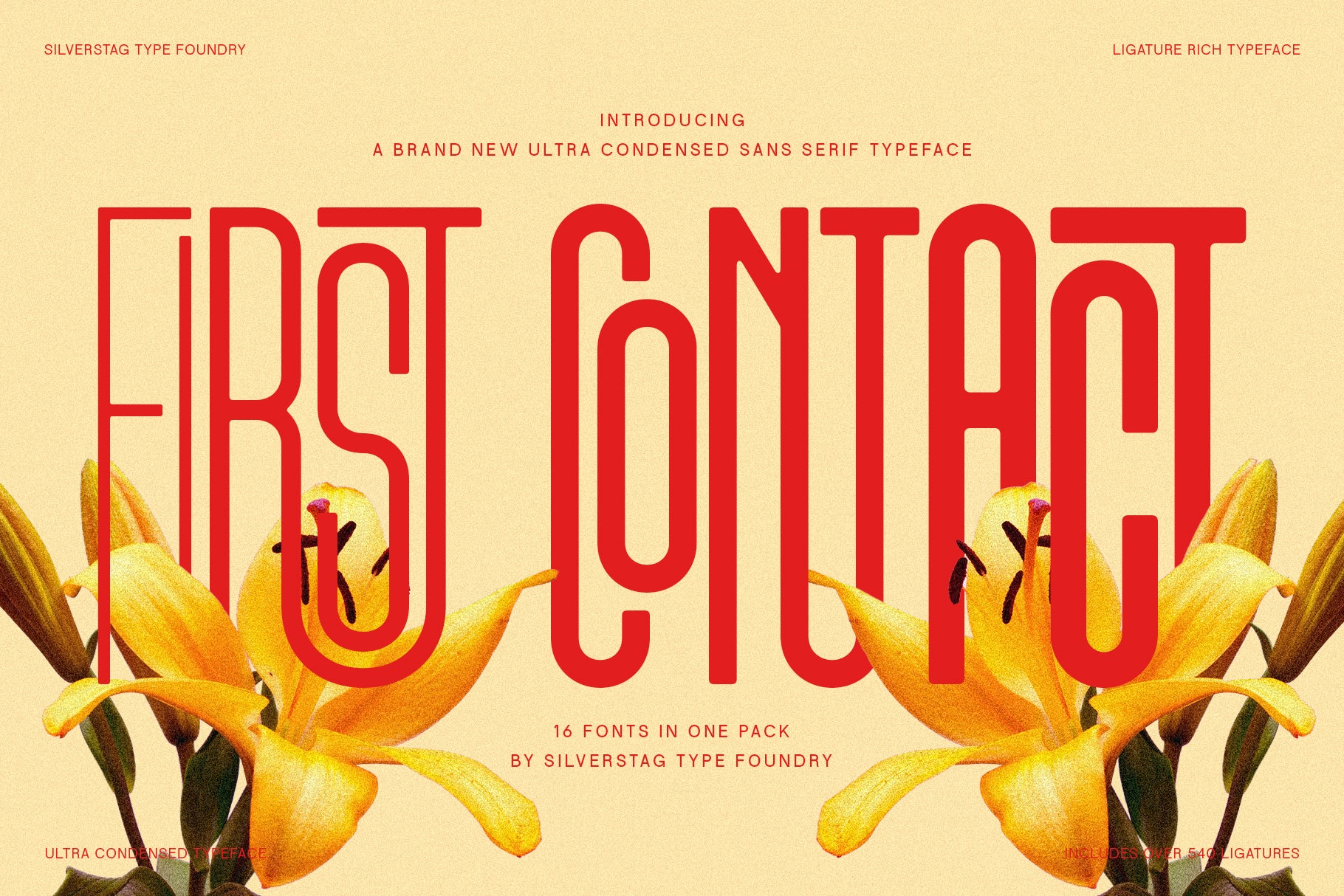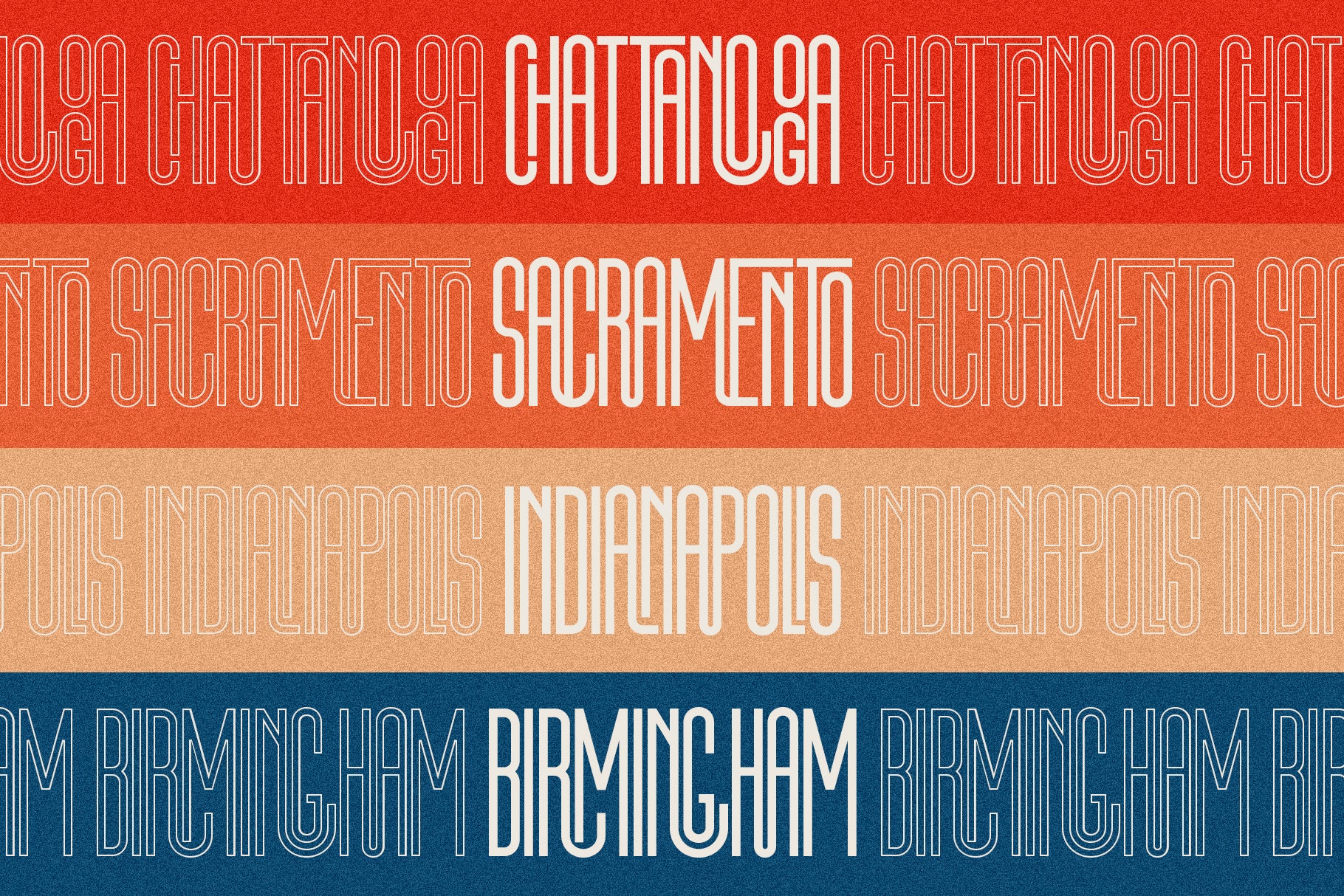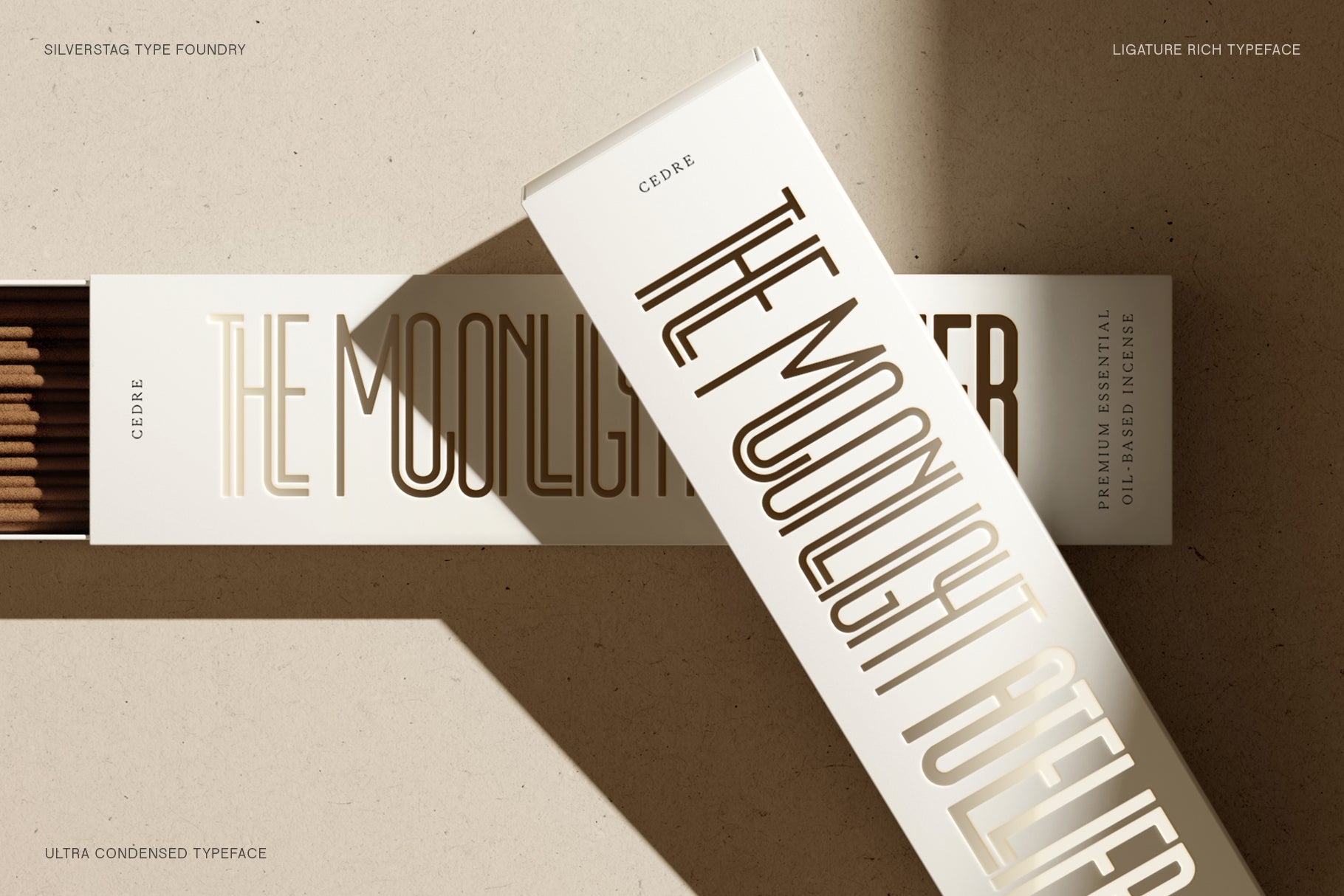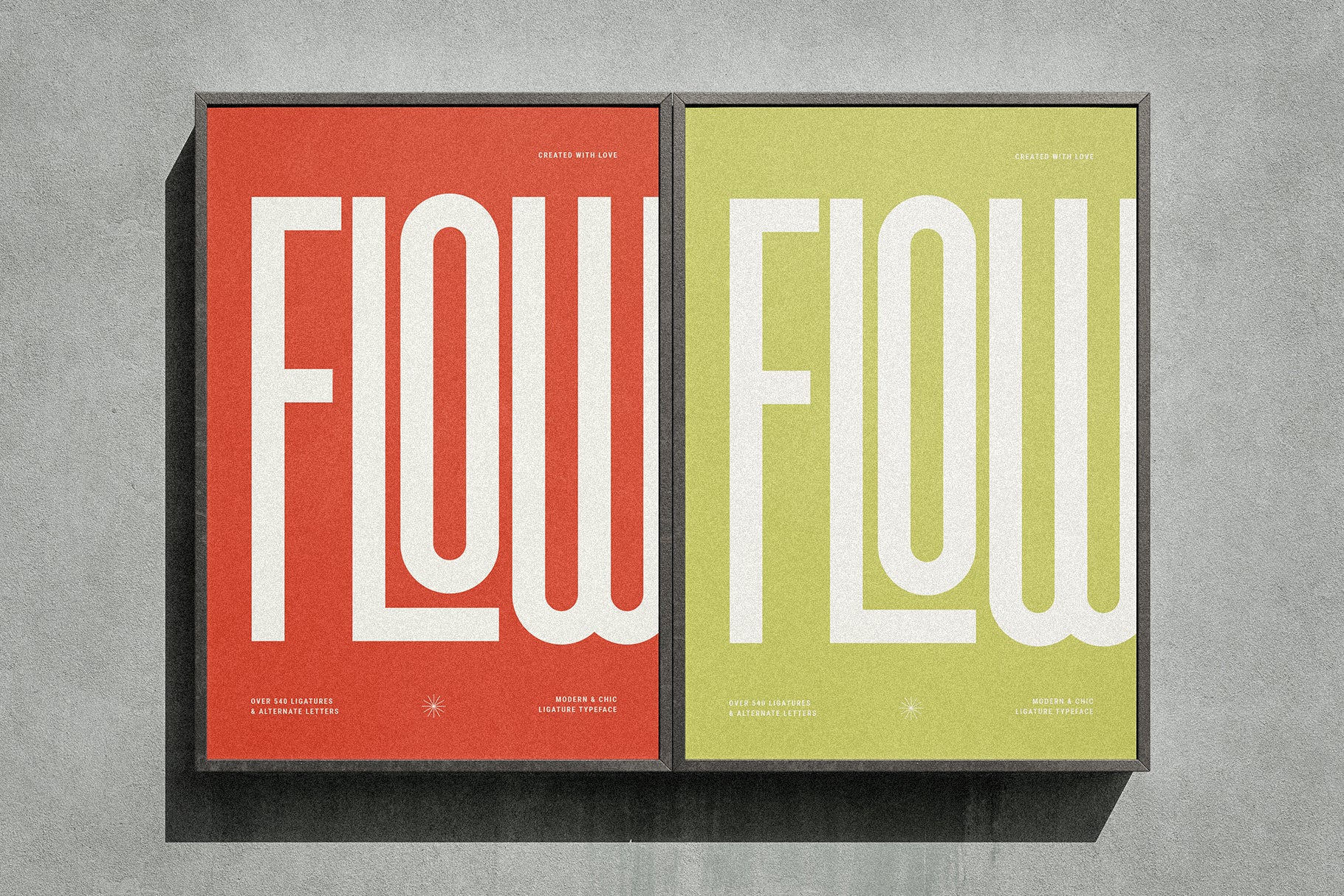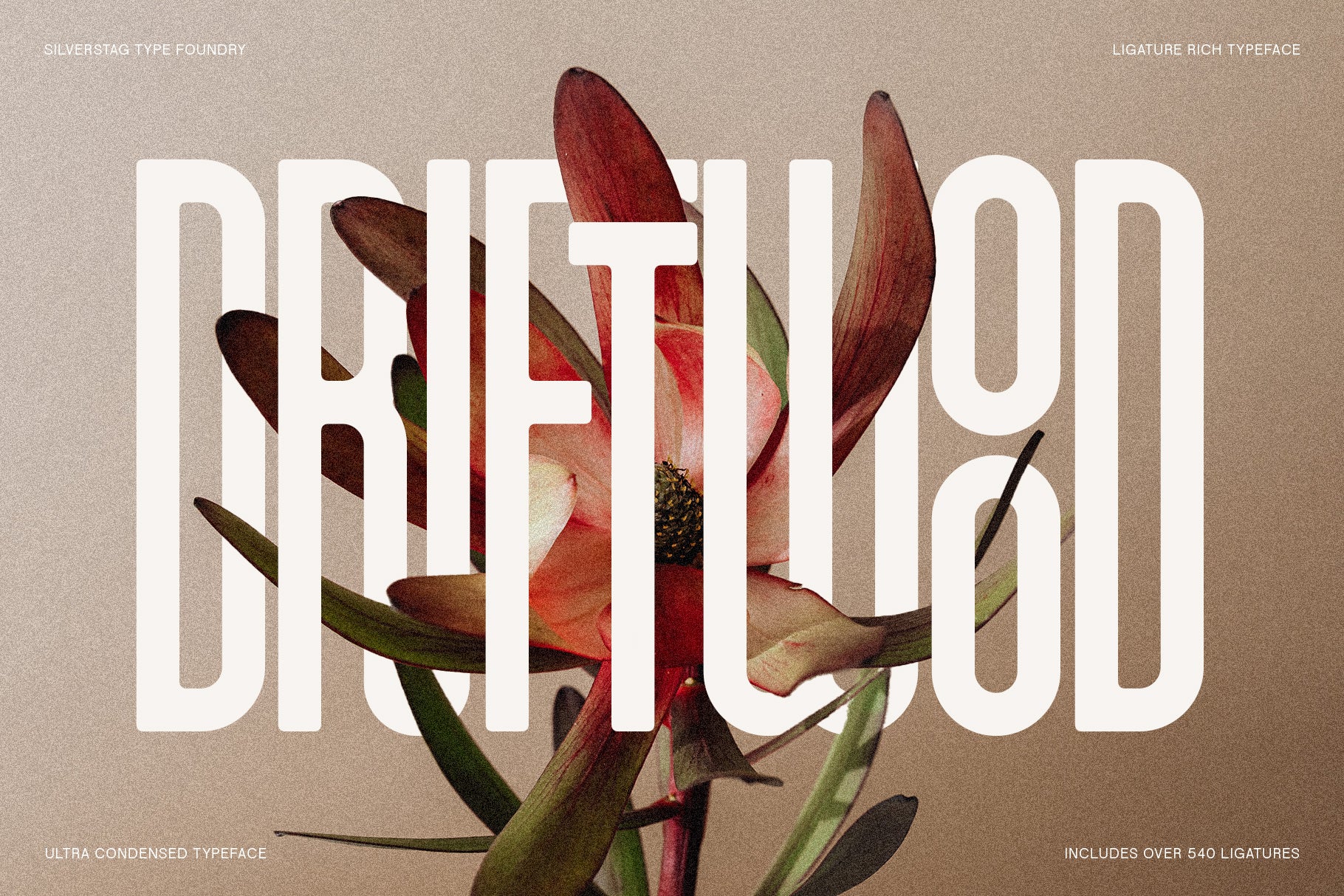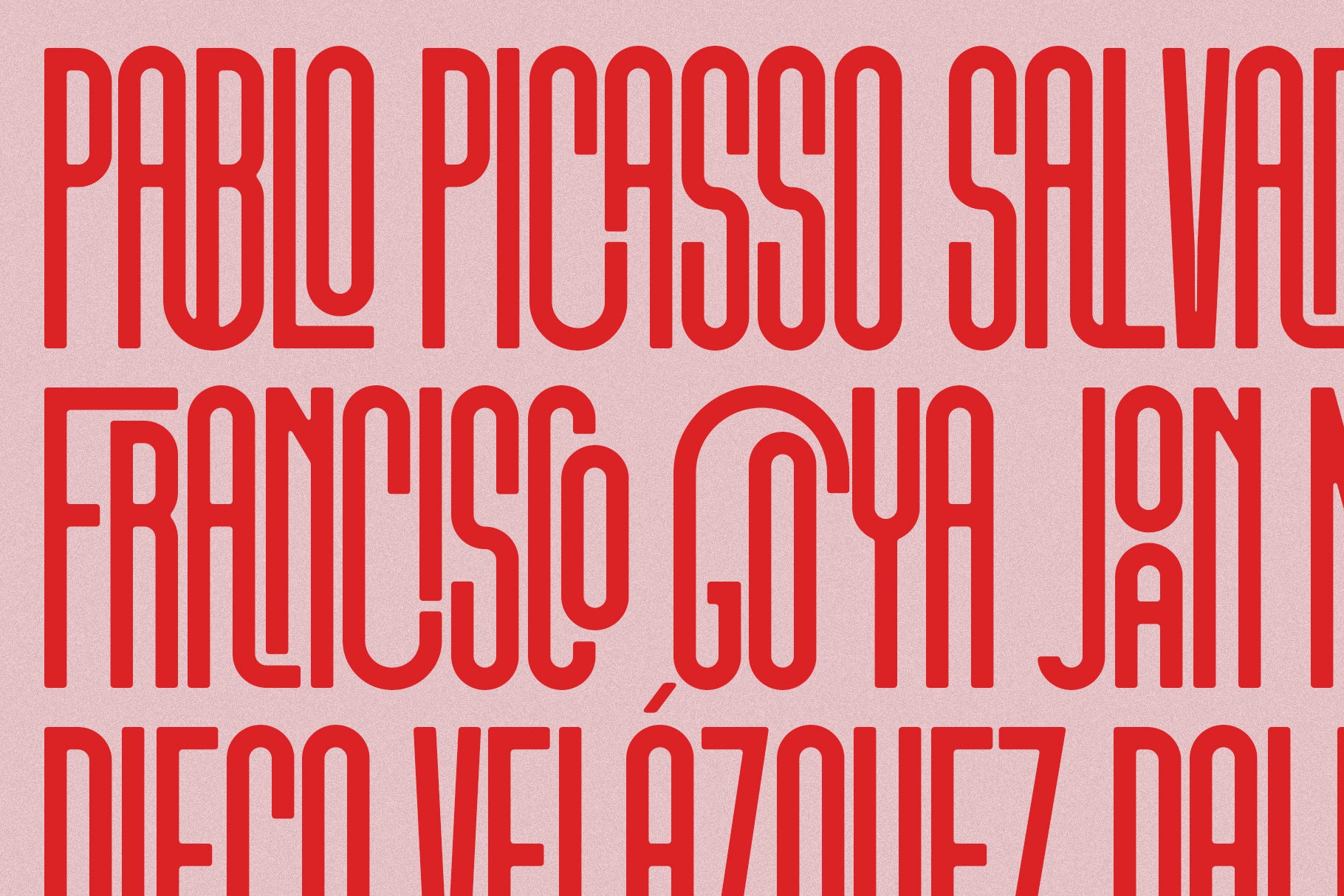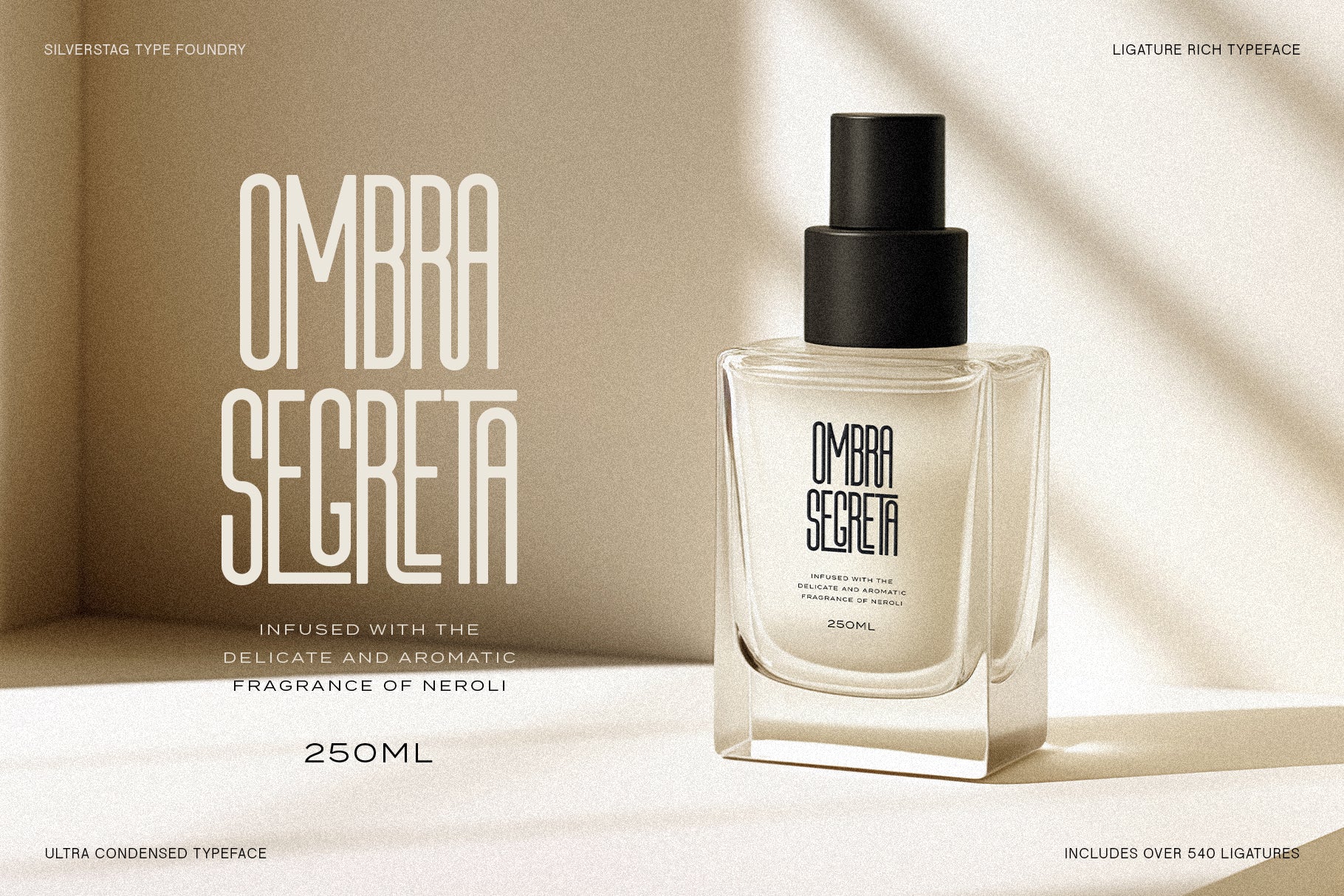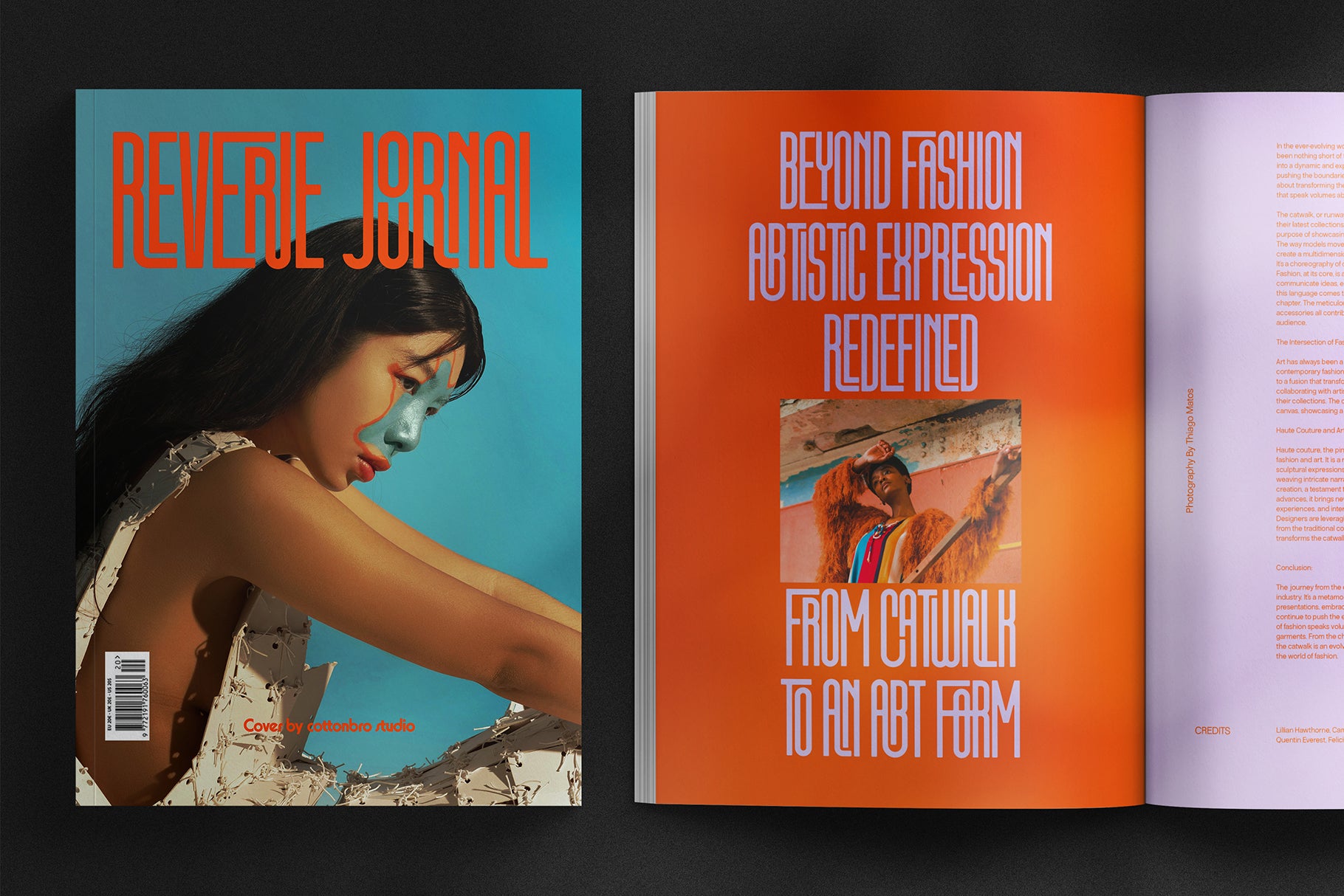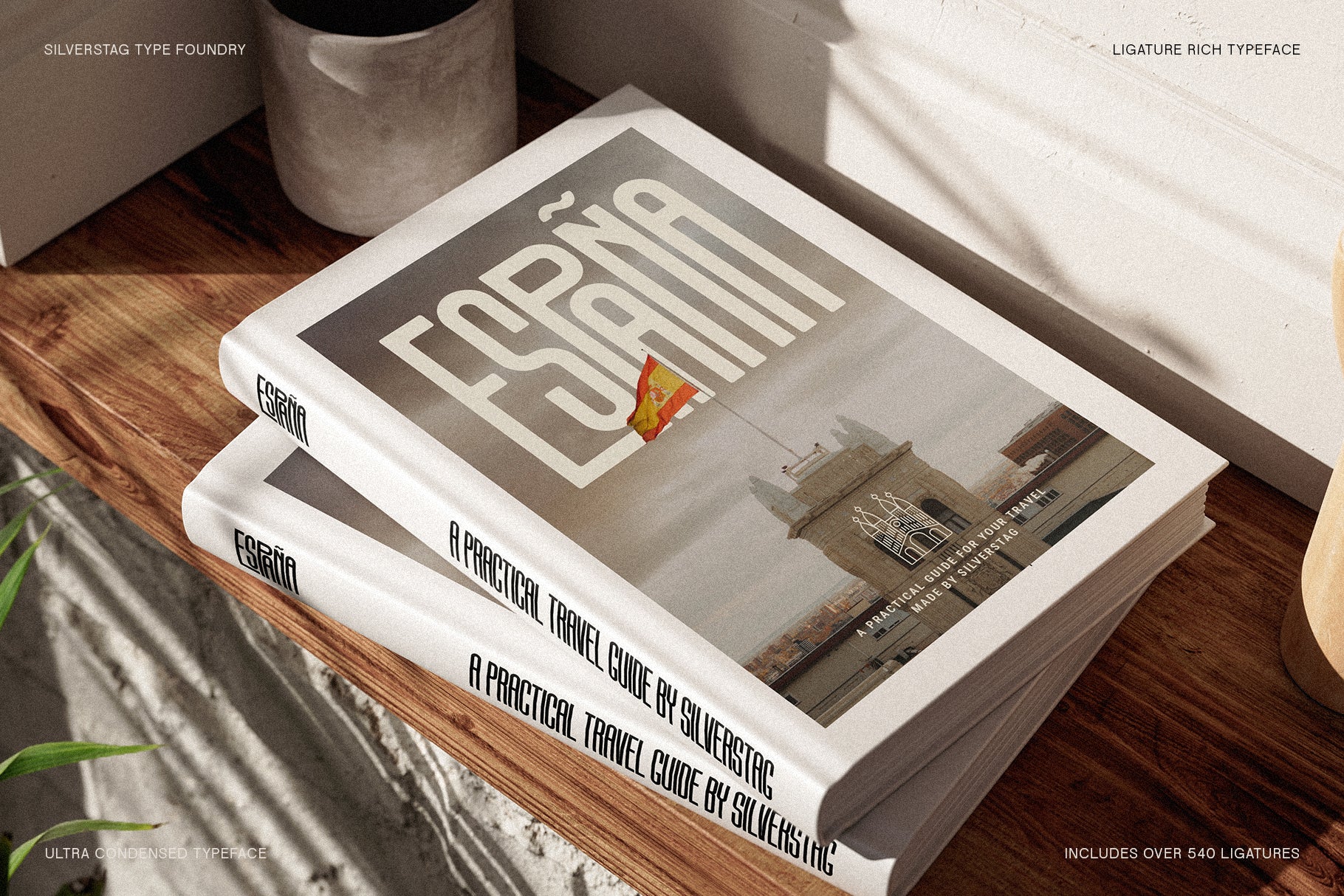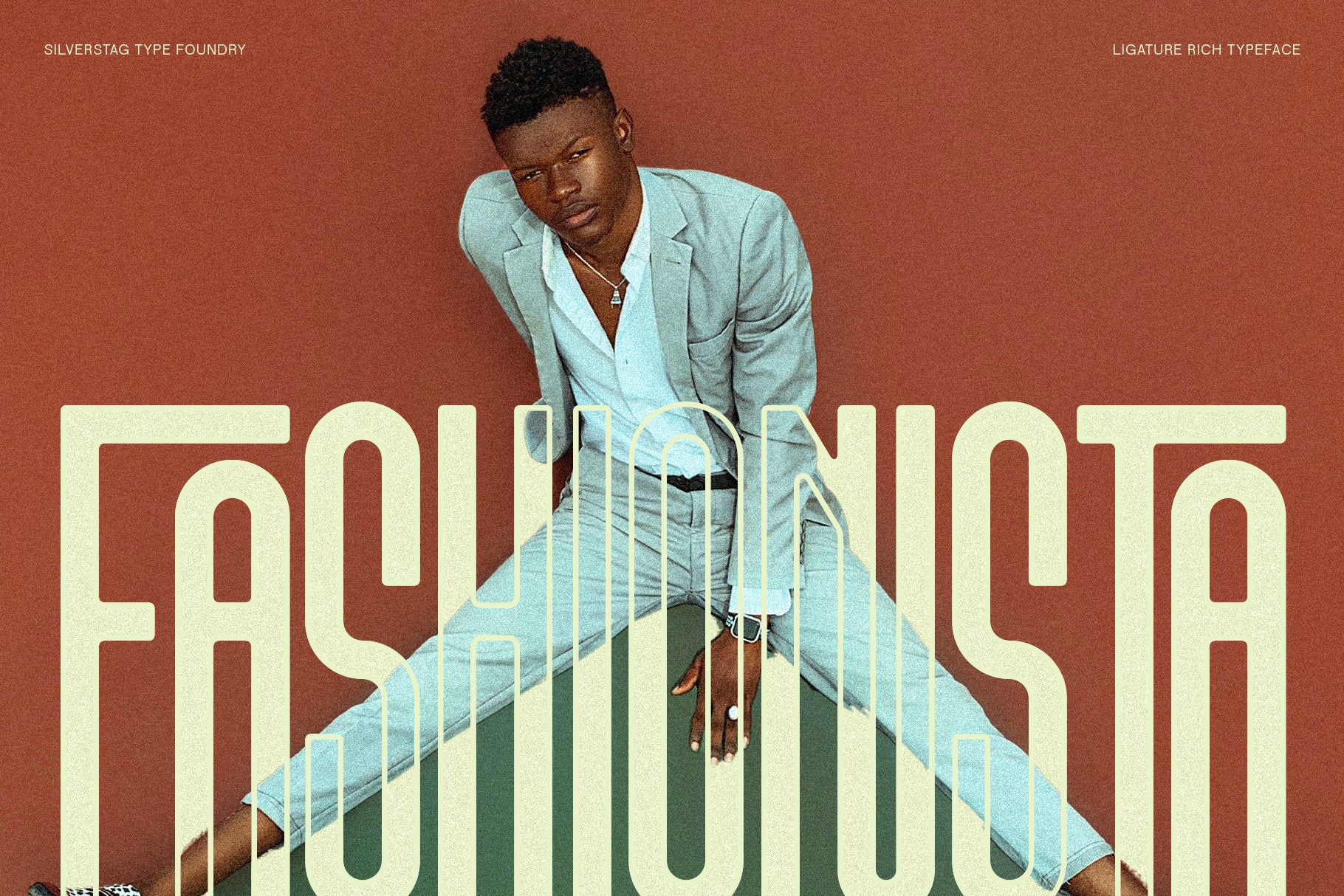
First Contact - Ultra Condensed Typeface (16 Fonts)
First Contact is a modern ultra-condensed typeface family built for bold, space-efficient design. With 16 fonts—including Ultra Light, Light, Thin, and Regular weights in Rounded and Outlined styles—this collection offers maximum visual impact with minimal horizontal space.
Designed for standout headlines, expressive logos, cutting-edge web layouts, and sleek packaging, First Contact brings structure, style, and character to any creative project. Its tall letterforms and tight spacing create an instantly recognizable look that commands attention.
This typeface includes 540+ ligatures, giving your designs a uniquely expressive rhythm and contemporary edge. Whether you’re creating striking editorial layouts or eye-catching identity systems, First Contact offers endless typographic combinations.
US city names — Chattanooga, Sacramento, Indianapolis, Birmingham — set in First Contact, filled and outline, on red, coral and blue bands — type specimen.
Two framed posters reading "Flow" in cream First Contact, on red and lime — poster mockup.
A perfume bottle reading "Ombra Secreta, fragrance of neroli, 250ml" set in First Contact — perfume packaging mockup.
A travel book reading "España, a practical travel guide" set in First Contact — book mockup.
Black and yellow soap dispensers reading "Scent Haven" set in First Contact — packaging mockup.
"Margot" magazine spreads set in First Contact, with a black-and-white photo of a person in a hat — magazine mockup.
"Polaroid" magazine covers in cream and yellow set in First Contact, with black-and-white photos — magazine mockup.
"Maurice* Ravel, Opera / Paris" set in yellow First Contact, filled and outline, over a black-and-white photo of a ballet dancer — display.
Herb names embossed in First Contact on tan — Thyme, Sage, Parsley, Dill, Chives, Mint — type-as-texture specimen.
A dark business card reading "Former Studios, Carl Grant" set in First Contact — branding mockup.
"Editorial" repeated in yellow and red First Contact over a photo of a woman in a sari — type-as-texture layout.
"Madrid" set in black First Contact over a photo of the Metropolis building in Madrid — display.
A dark business card reading "Cavendish, ultra condensed ligature rich sans serif" set in First Contact — branding mockup.
"Freedom" set in cream First Contact over a photo of a person in a bucket hat by the sea — type-as-texture display.
"Driftwood" set in white ultra-condensed First Contact over a pink protea flower — type-as-texture display.
A white box reading "The Moonlight Atelier, Cedre, premium essential oil-based incense" set in First Contact, with matchsticks — packaging mockup.
Artist names — Pablo Picasso, Salvador Dalí, Francisco Goya, Joan Miró, Diego Velázquez — set in red First Contact on pink — type specimen.
A "Reverie Journal" magazine set in First Contact — a cover and an orange spread on fashion as an art form — magazine mockup.
"Fashionista" set in pale yellow First Contact over a photo of a man in a teal suit — type-as-texture display.
"Botanique" set in cream First Contact over a photo of plants on tan — type-as-texture display.
A business card reading "Carl Lagard, ultra condensed typeface with over 540 ligatures" set in First Contact, on a woven backdrop — branding mockup.
"Officially" set in cream First Contact over a teal background with a billy-button flower — type-as-texture display.
A cream box reading "Hauterra" set in First Contact with an inset thistle photo — packaging mockup.
"The Inside* Look, made naturally and crafted with pure love" in cream and lime First Contact on dark green — type specimen.
A hanging sign reading "Grant Travel, your travel agency" with an airplane graphic, set in First Contact — branding mockup.
A dark business card reading "Former Studios, Max Sawyer" set in First Contact on wood — branding mockup.
A canvas tote bag printed with tiled outline First Contact lettering, on stone steps — apparel mockup.
US city names set in cream First Contact over a dark textured background in a diagonal layout — type-as-texture specimen.
"Ember & Aura" set in cream First Contact over black-and-white photos of women — fashion branding mockup.
"Driftwood" set in white ultra-condensed First Contact over a pink protea flower — type-as-texture display.
US city names — Chattanooga, Sacramento, Indianapolis, Birmingham — set in First Contact, filled and outline, on red, coral and blue bands — type specimen.